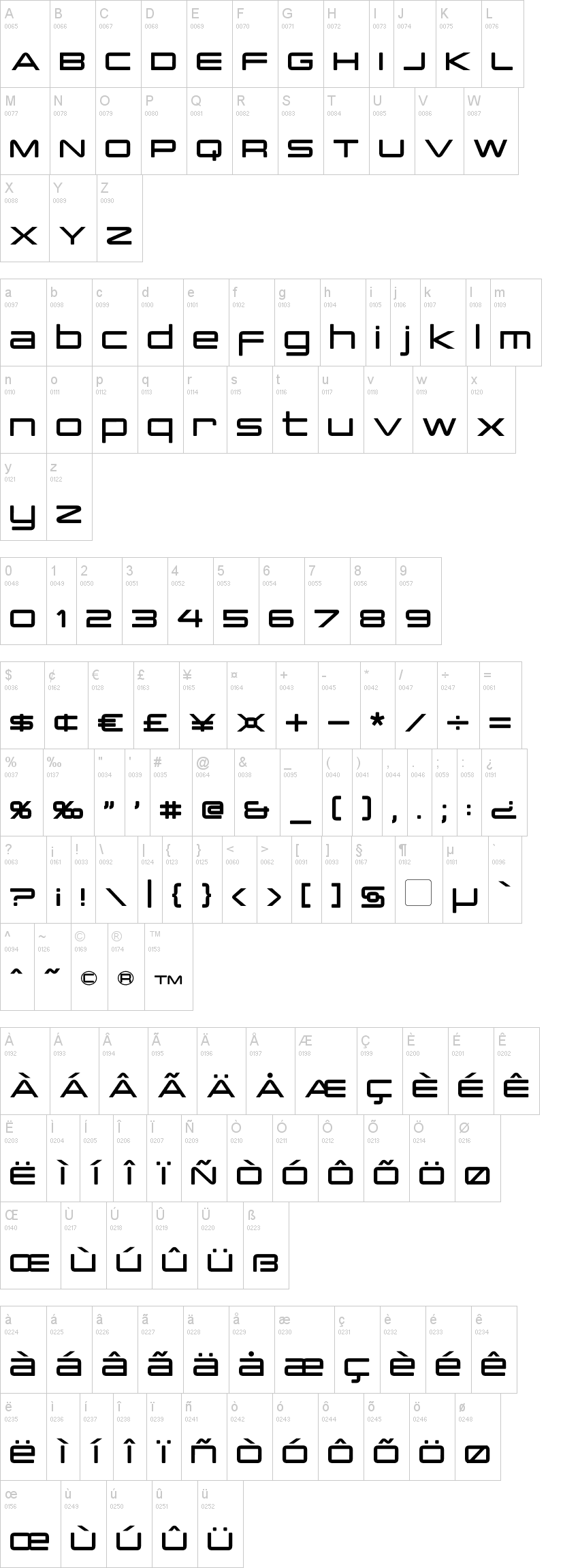
PCap Terminal Italic.otfPCap Terminal Bold.otfPCap Terminal Bold Italic.otfPCap Terminal Condensed.otfPCap Terminal Condensed Italic.otfPCap Terminal Condensed Bold.otfPCap Terminal Condensed Bold Italic.otfNote of the authorPCap Terminal is Pixel Saga's version of some of the computer text seen in the JJ Abrams Star Trek motion picture series. This is an LCD-style face with exaggerated lower-case letters (not shown in the movies). This font includes full alphanumerics, extended punctuation, euro. Available in regular, bold, italic, bold-italic, condensed, condensed bold, condensed italic and condensed bold-italic weights.
* Polish Characters Added
* Glyph cleanups
* Condensed version added